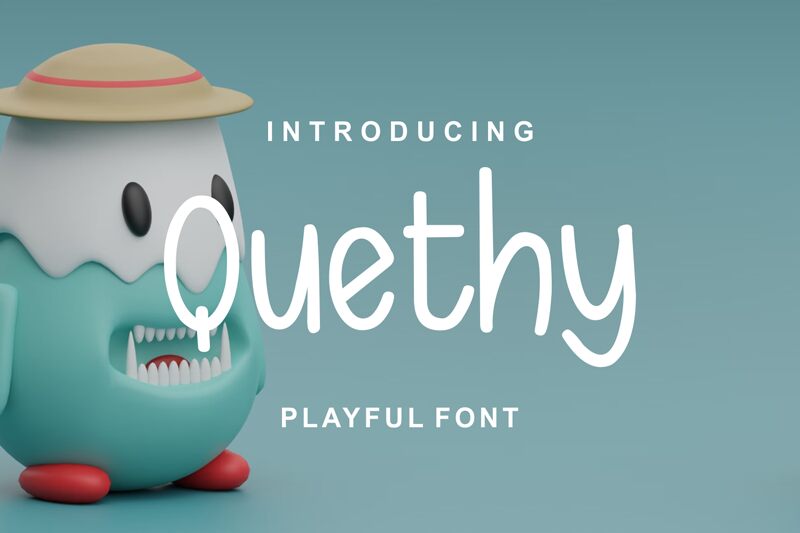
Quethy
Quethy font is a comfortable and friendly handwritten font created by Zamjump. Its rounded edges, approachable style, and contemporary vibe create an original style fit for various informal and professional uses. Curvy strokes further add to Quethy’s charm along with its legible letter design that does wonder in writing long paragraphs. This friendly font offers beautiful visuals and free usage.
Quethy can shine in graphic design projects of all sorts including logo design, business cards, posters, social media posts, packaging labels, t-shirt designs, wedding invitations, book covers, stickers on bottles or jars of cosmetics or food products.